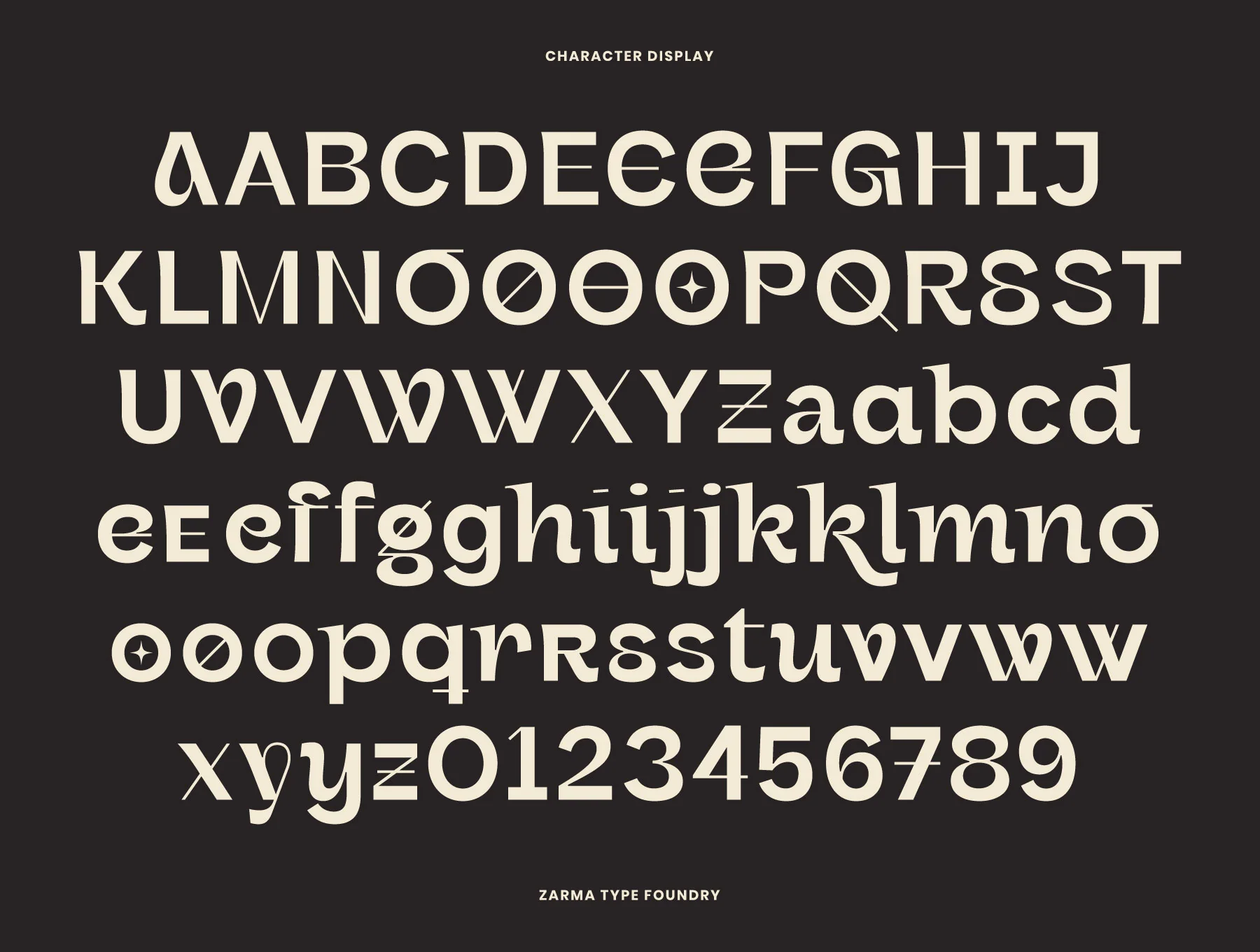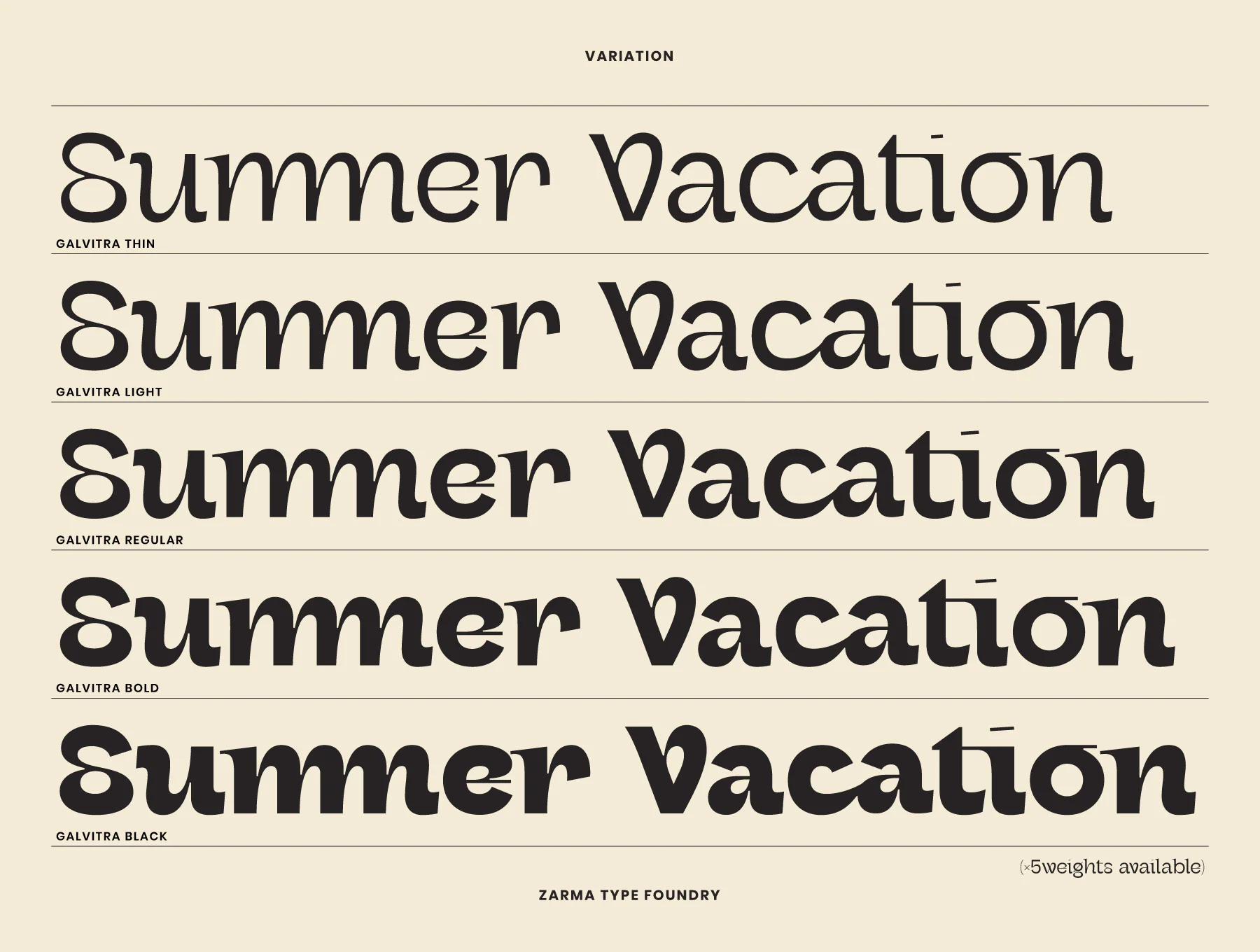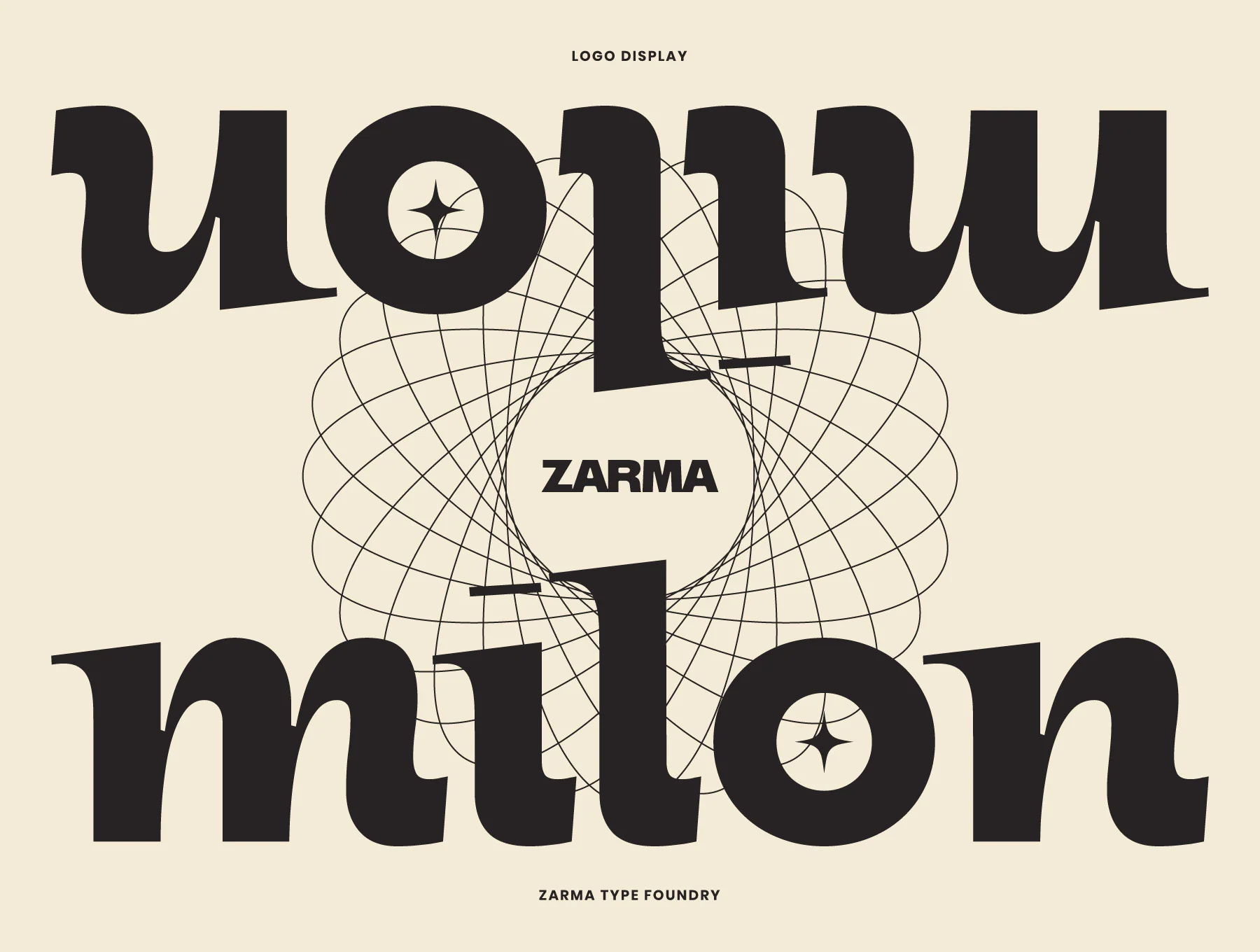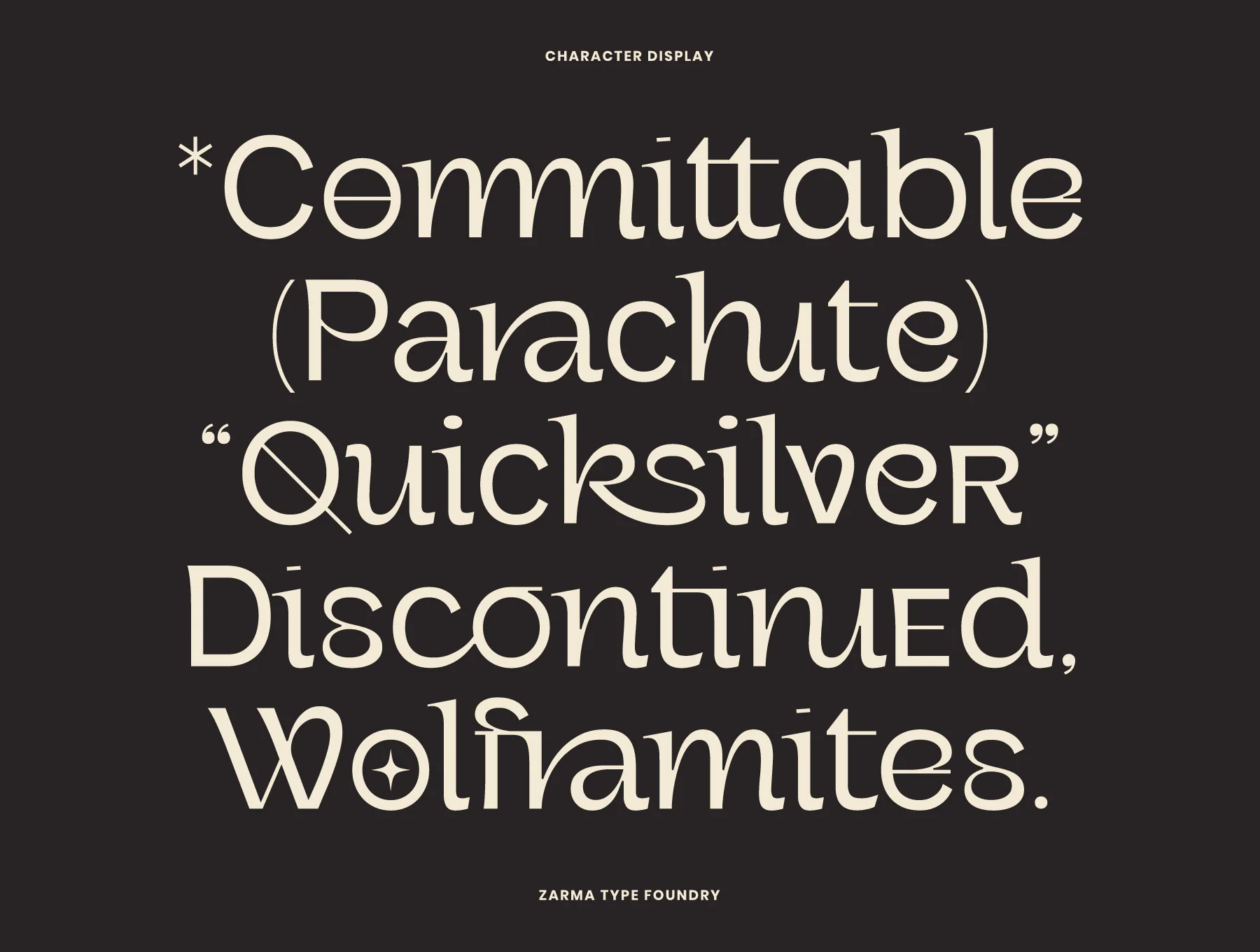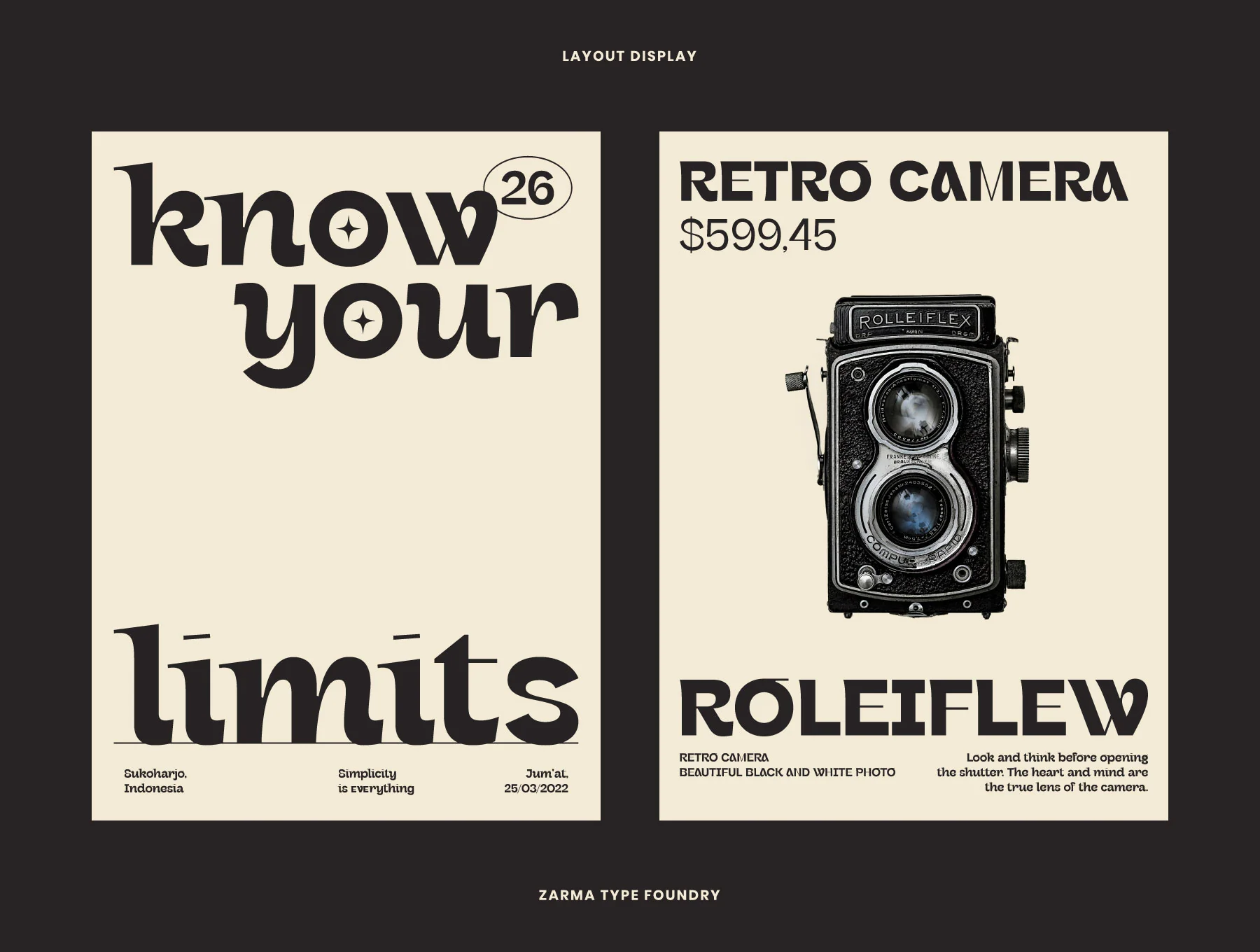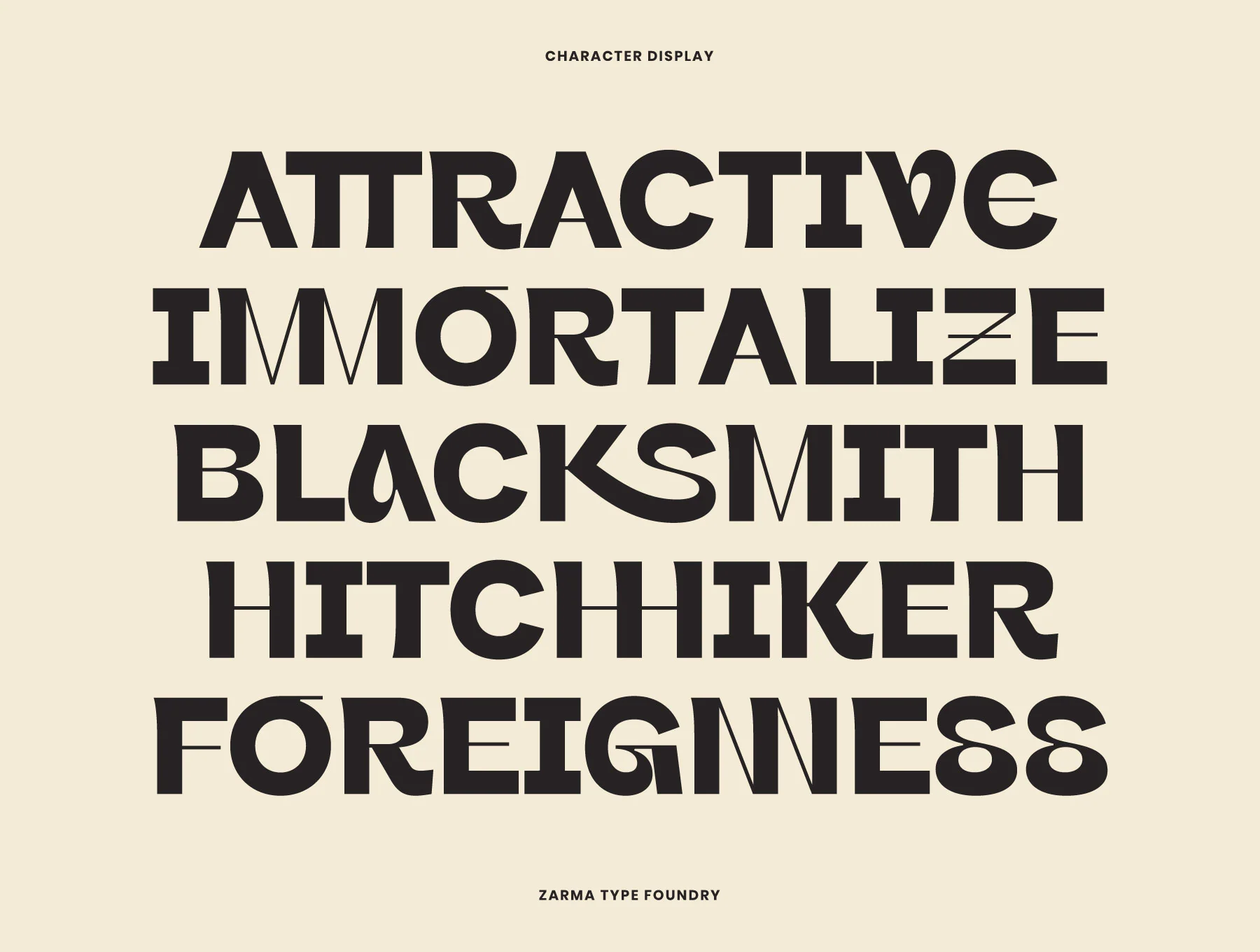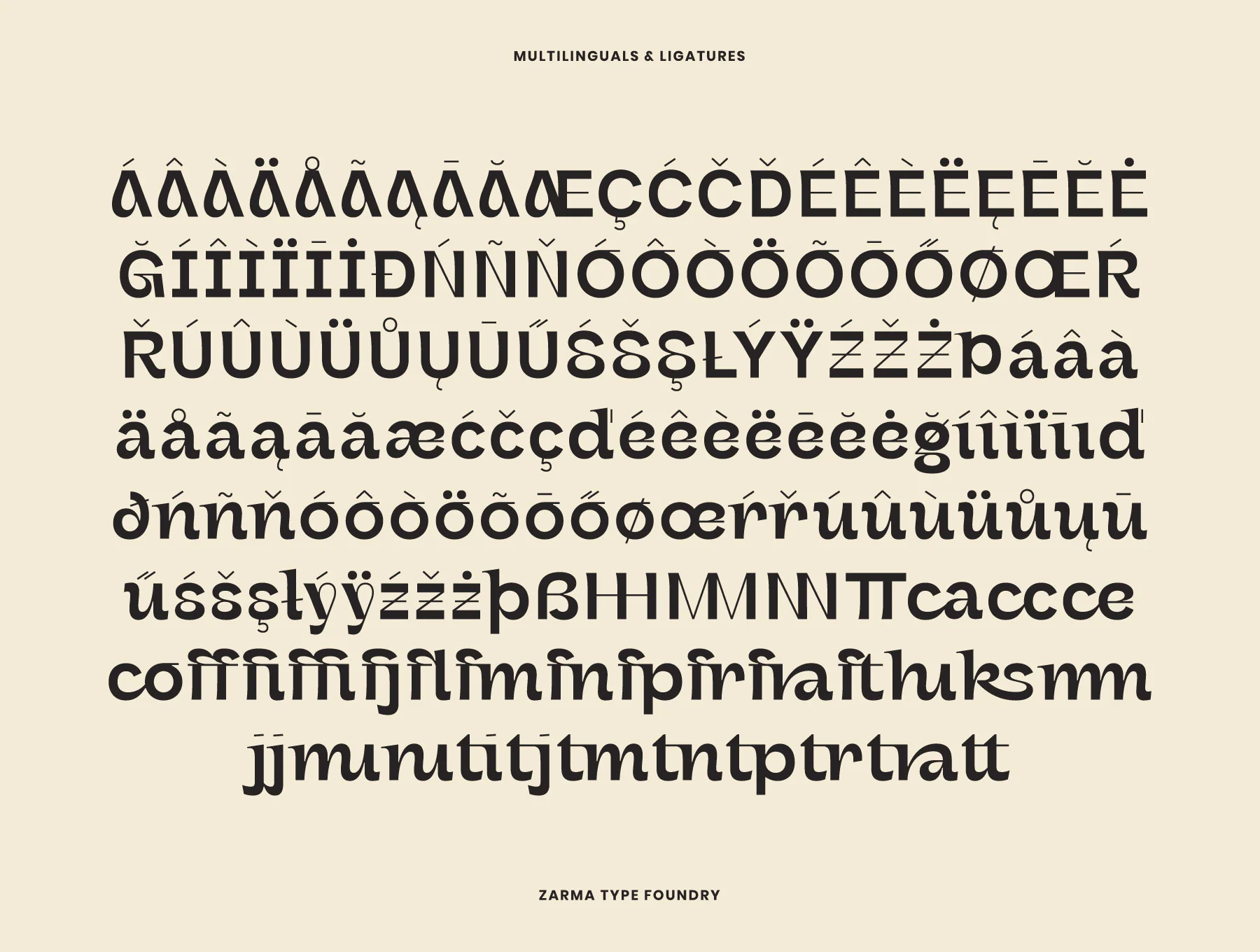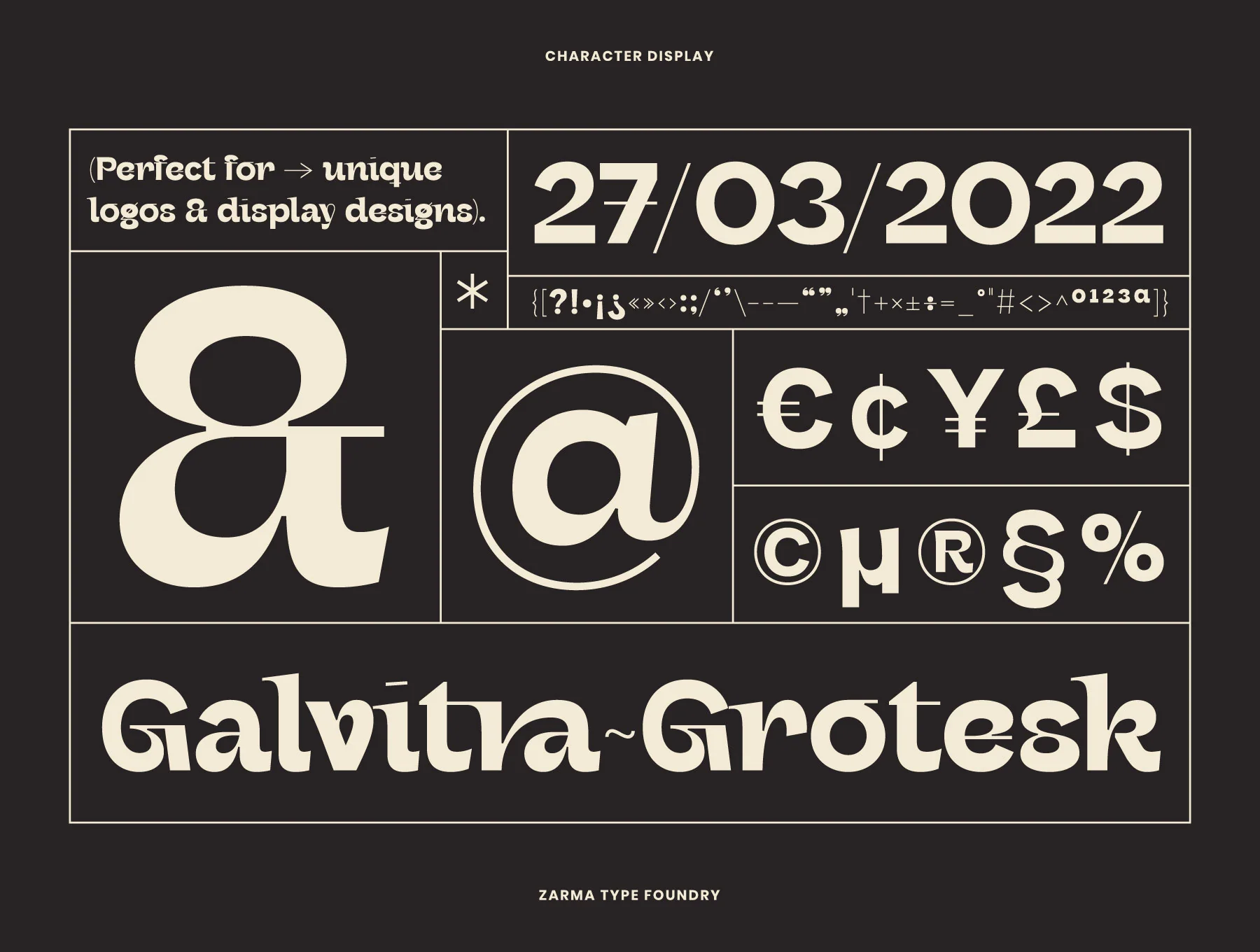
Galvitra - Display Font Family
Contemporary font available in 5 weights.
Capital letters, small letters, numbers, and punctuation
Five styles: Thin, Light, Regular, Bold, and Black
Multilingual language compatibility
Discover Galvitra, a refined modern display sans that refreshes grotesque style with 5 weights and OpenType features. Its distinctive forms and subtle serifs bring vintage sophistication to branding, logos, and display work. Includes Thin, Light, Regular, Bold, and Black. Access alternates via Glyphs in Photoshop or Illustrator.